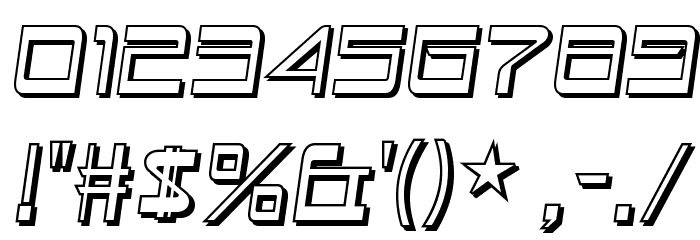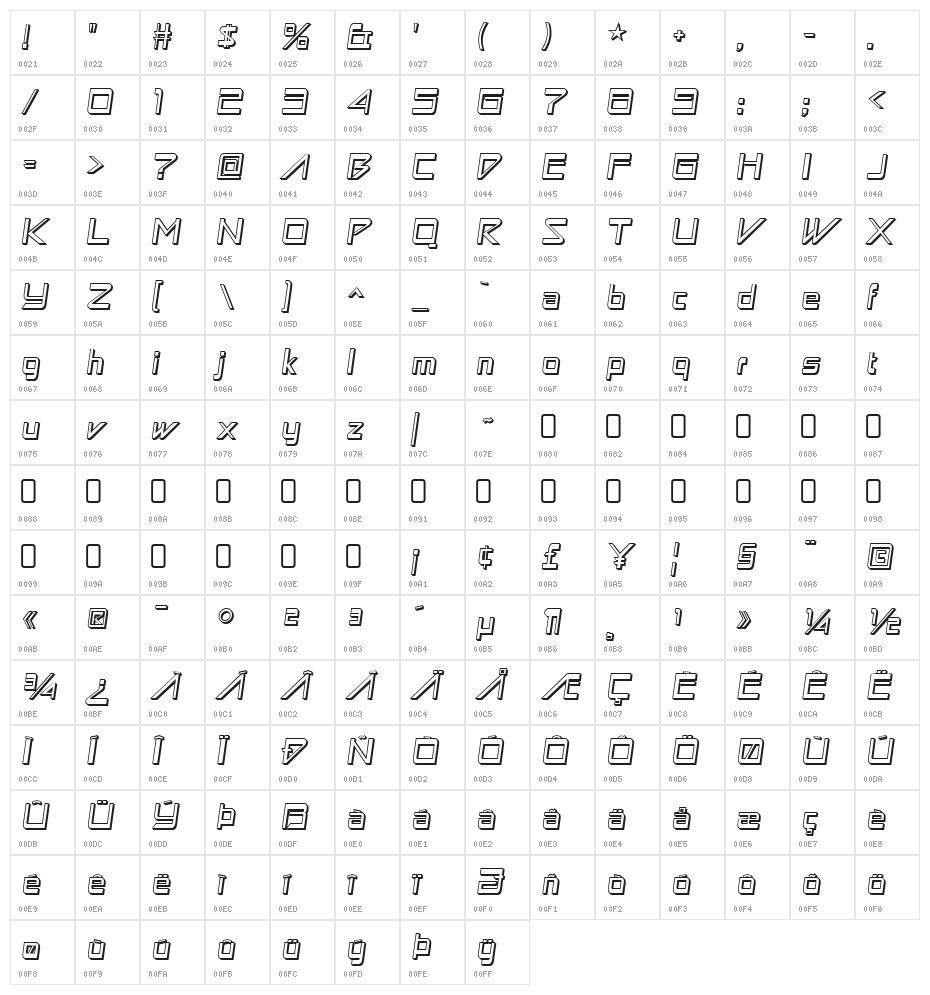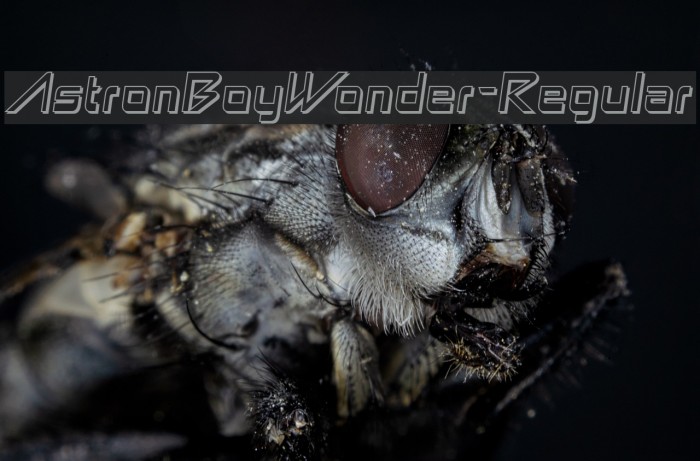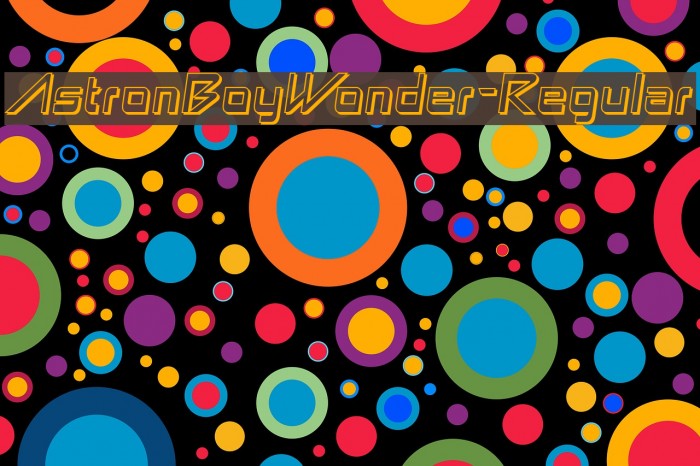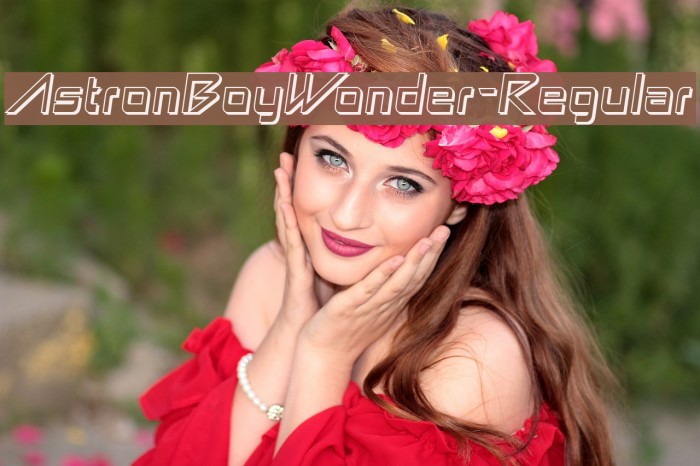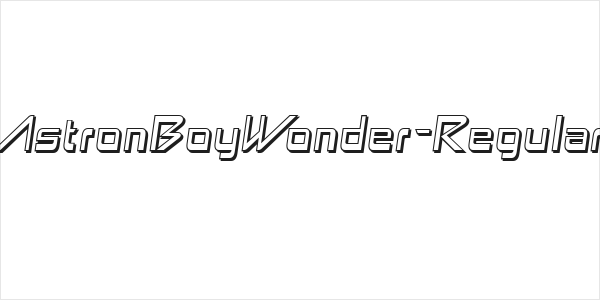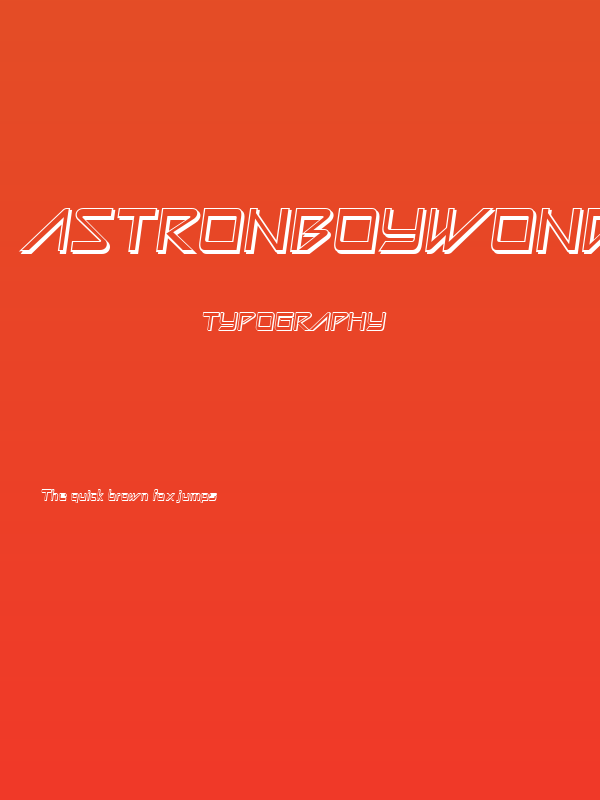
AstronBoyWonder-Regular Font
AstronBoyWonder-Regular Description
This font features a futuristic and geometric design, characterized by sharp angles and a distinct outline style. The uppercase letters exhibit a dynamic and angular form, while the lowercase letters maintain a consistent geometric structure. The numerals are bold and align well with the overall aesthetic, providing a cohesive look. Special characters are designed with the same angular and outlined style, ensuring uniformity across all glyphs. The font's unique design makes it suitable for projects that require a modern and edgy appearance.
| Proposed Projects | Ideal for sci-fi themed designs, video game titles, tech branding, and futuristic posters. |